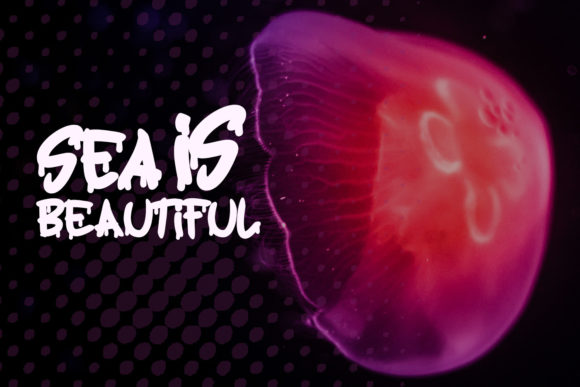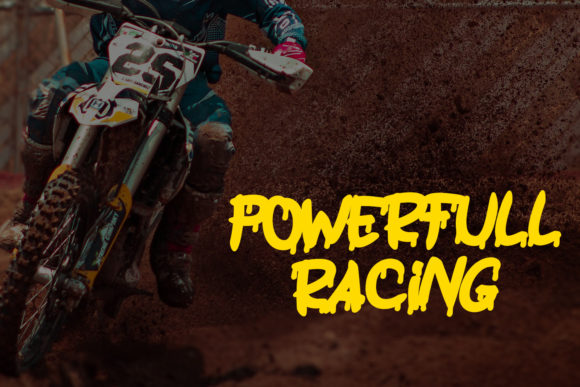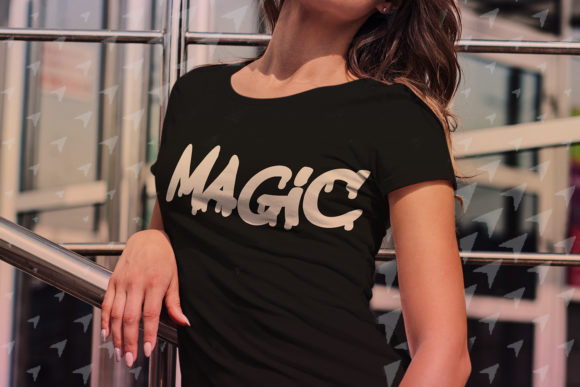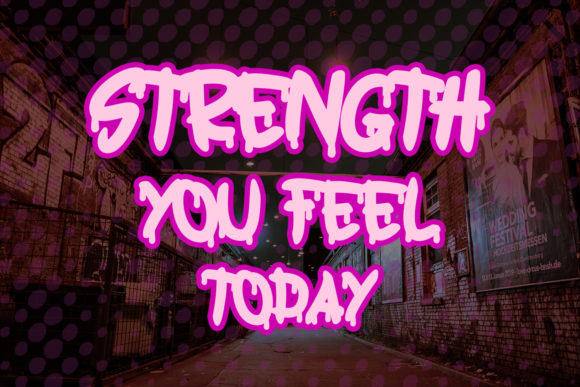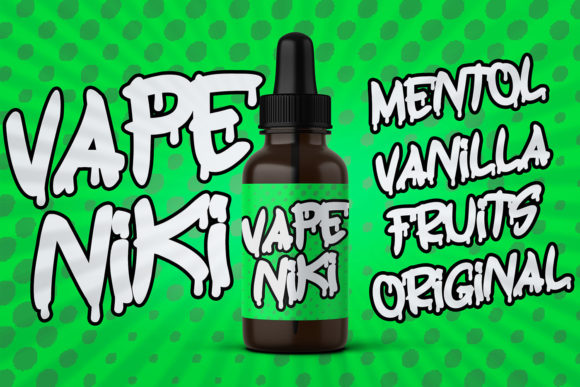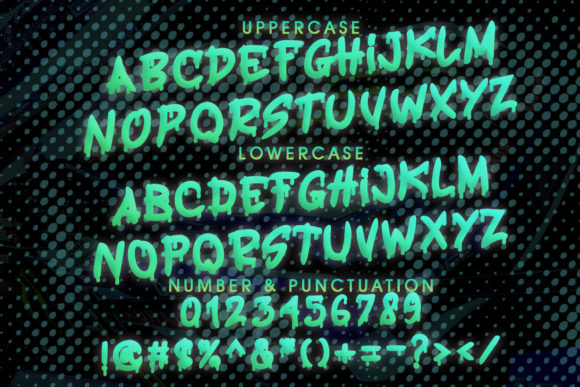
The Come Back Font: A Spooky Display Font for Your Creative Projects
As a designer, I’ve had my fair share of struggles when it comes to finding the perfect font for a project. I recall working on a Halloween-themed design for a client, and I was determined to create something that would send shivers down their spine. However, I was having a hard time finding a font that captured the spooky essence of the holiday. That was until I stumbled upon the Come Back font.
Come Back is a cool and spooky display font that has become a go-to for any Halloween-related project or crafty idea. The only limit is your imagination! In this article, I’ll share my experience with the Come Back font, its features, and how to use it on various platforms.
- ✨ Unique and eye-catching design that’s perfect for Halloween-themed projects
- ✅ Highly legible, even at large sizes
- 🎃 Spooky and eerie feel that’s sure to send chills down your audience’s spine
While the Come Back font is an excellent choice for Halloween-themed projects, there are a few quirks to consider:
- 🤔 Limited use outside of Halloween-themed projects, as it may not be suitable for other design projects
- ⚠️ May not be the best choice for body text, as it’s a display font and may be too ornate for long blocks of text
The Backstory Behind Come Back Font
The Come Back font was designed with the intention of creating a spooky and eye-catching display font that’s perfect for Halloween-themed projects. The designer aimed to create a font that’s both creepy and elegant, making it suitable for a wide range of design projects. While the exact inspiration behind the font is unclear, it’s evident that the designer was successful in creating a unique and captivating font.
Q: What type of projects is the Come Back font best suited for?
A: The Come Back font is best suited for Halloween-themed projects, such as party invitations, posters, and social media graphics.
Q: Is the Come Back font available in different styles or weights?